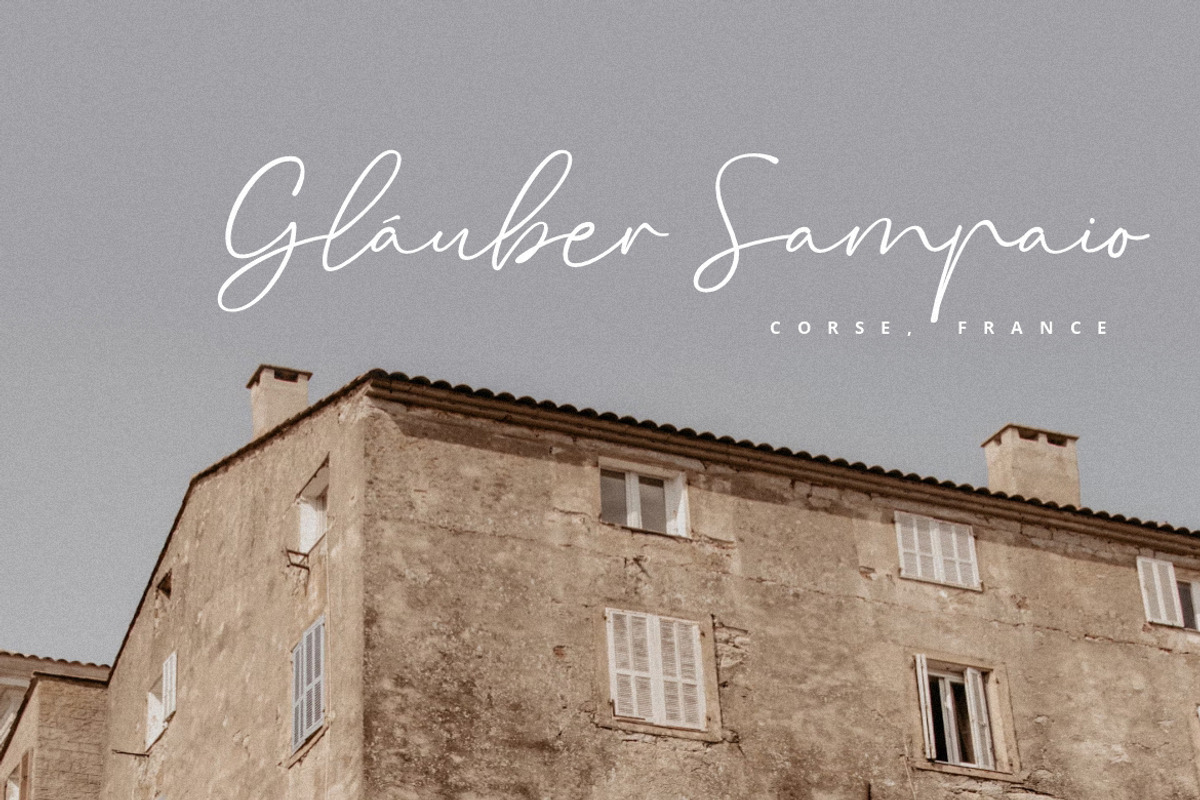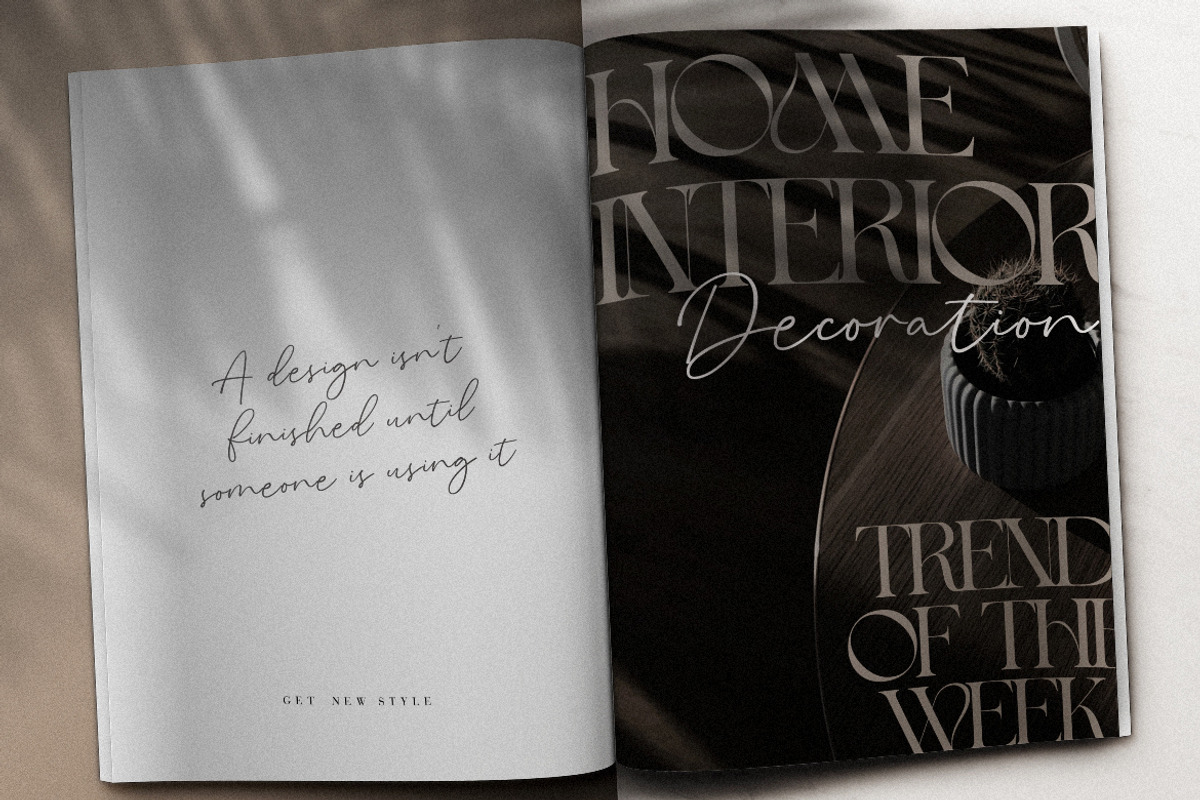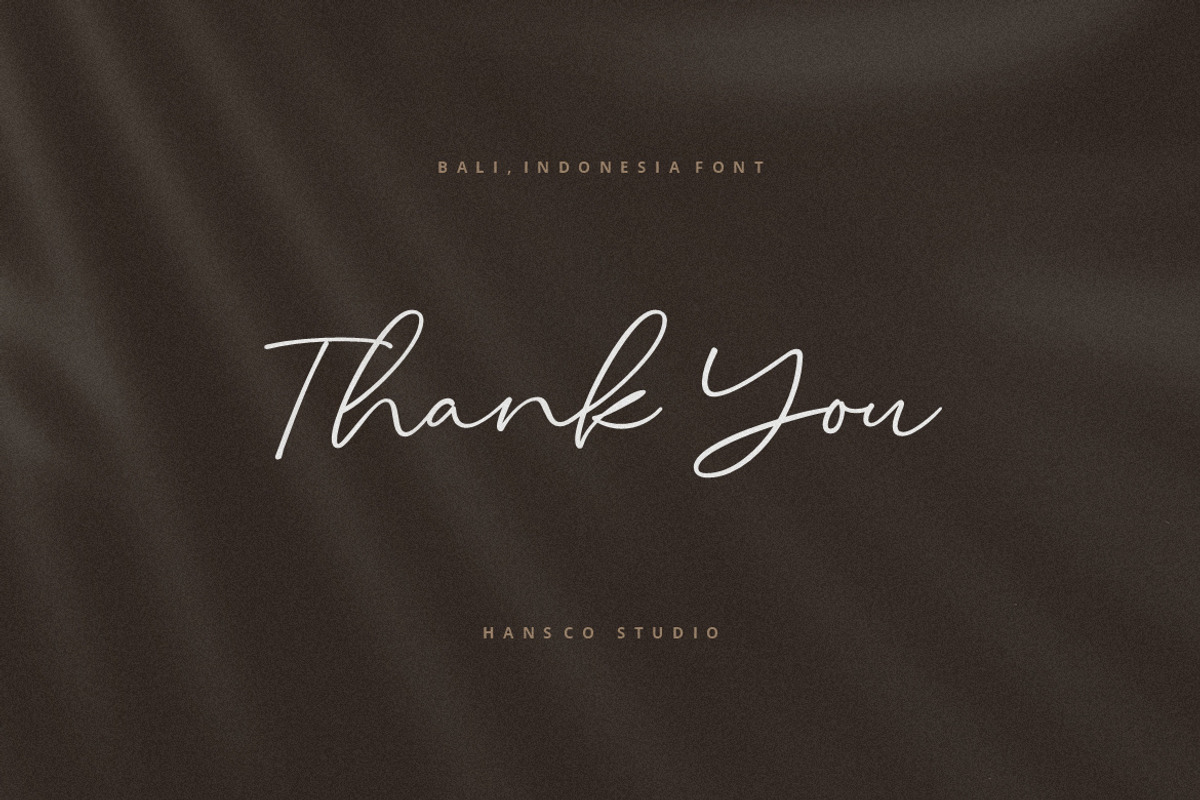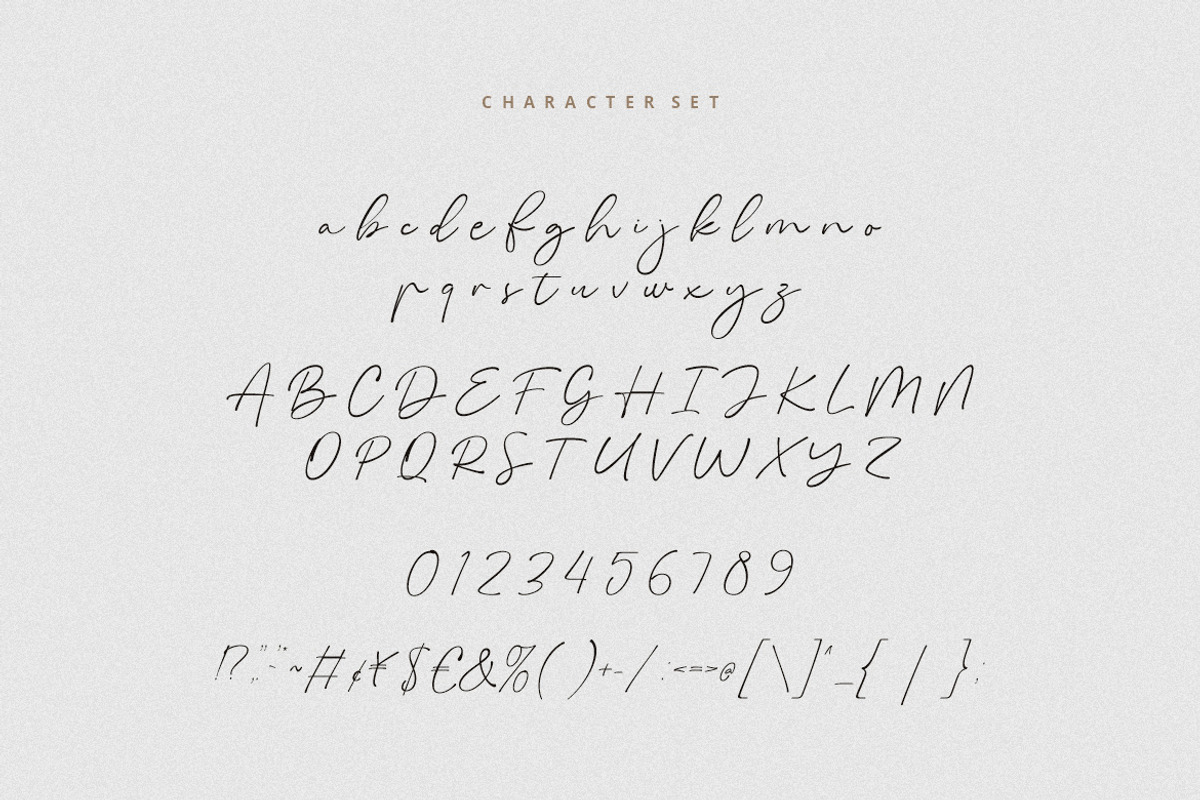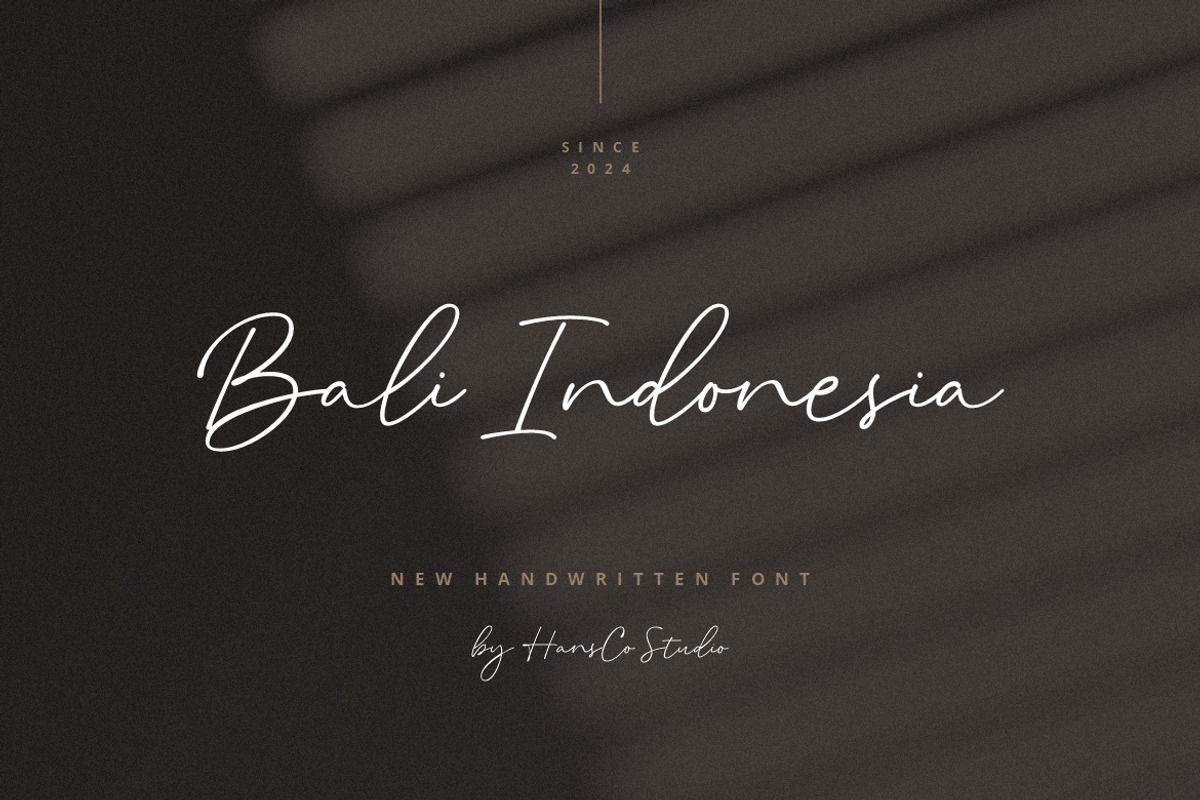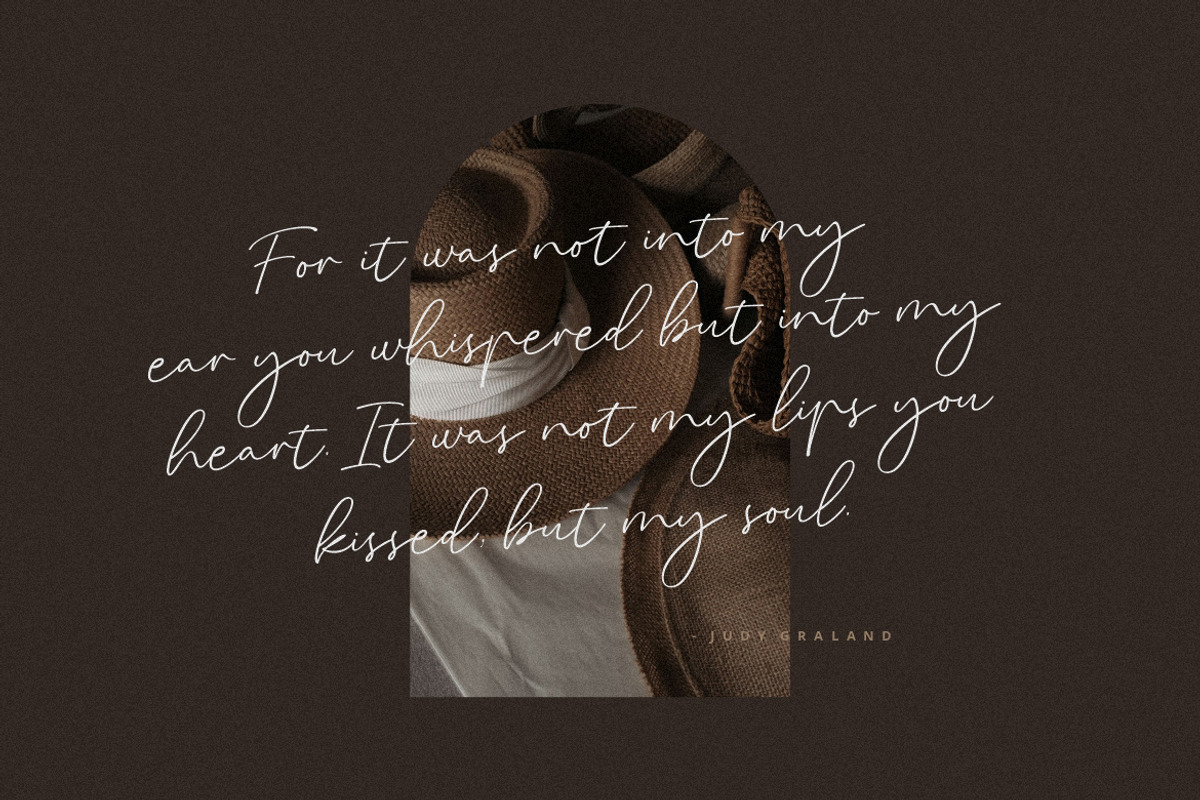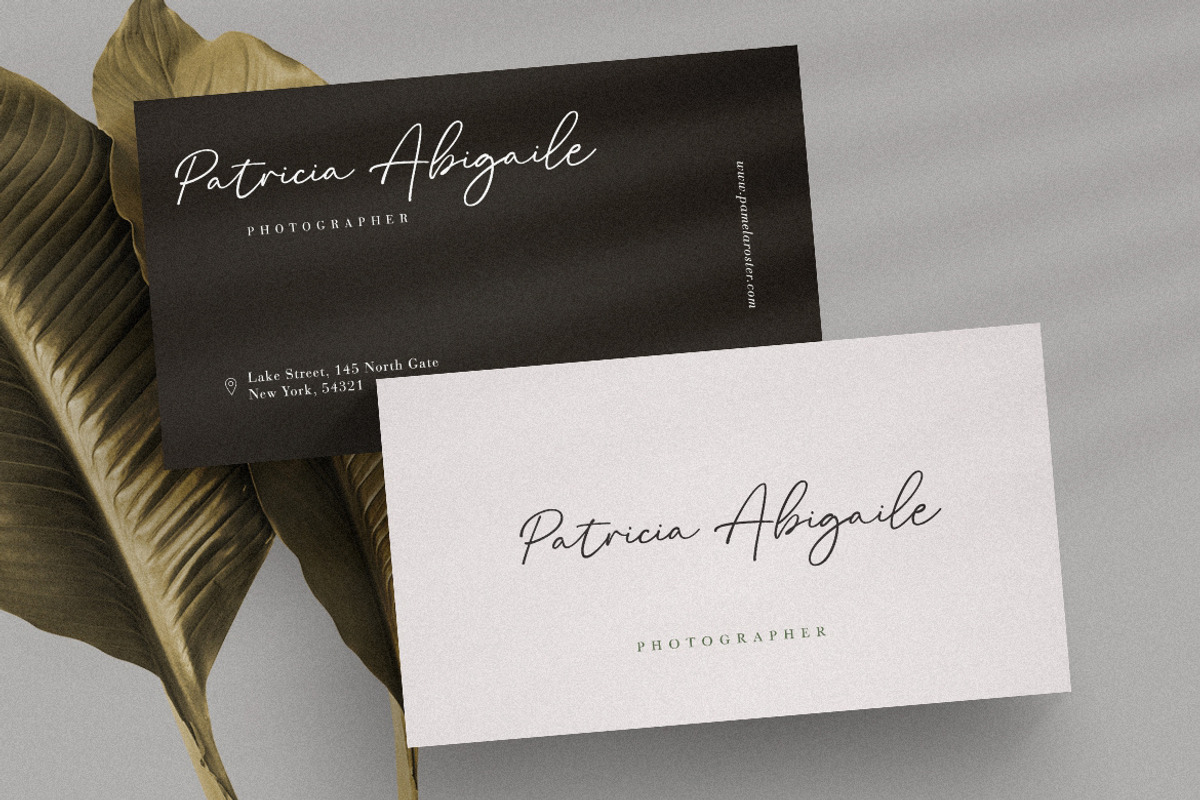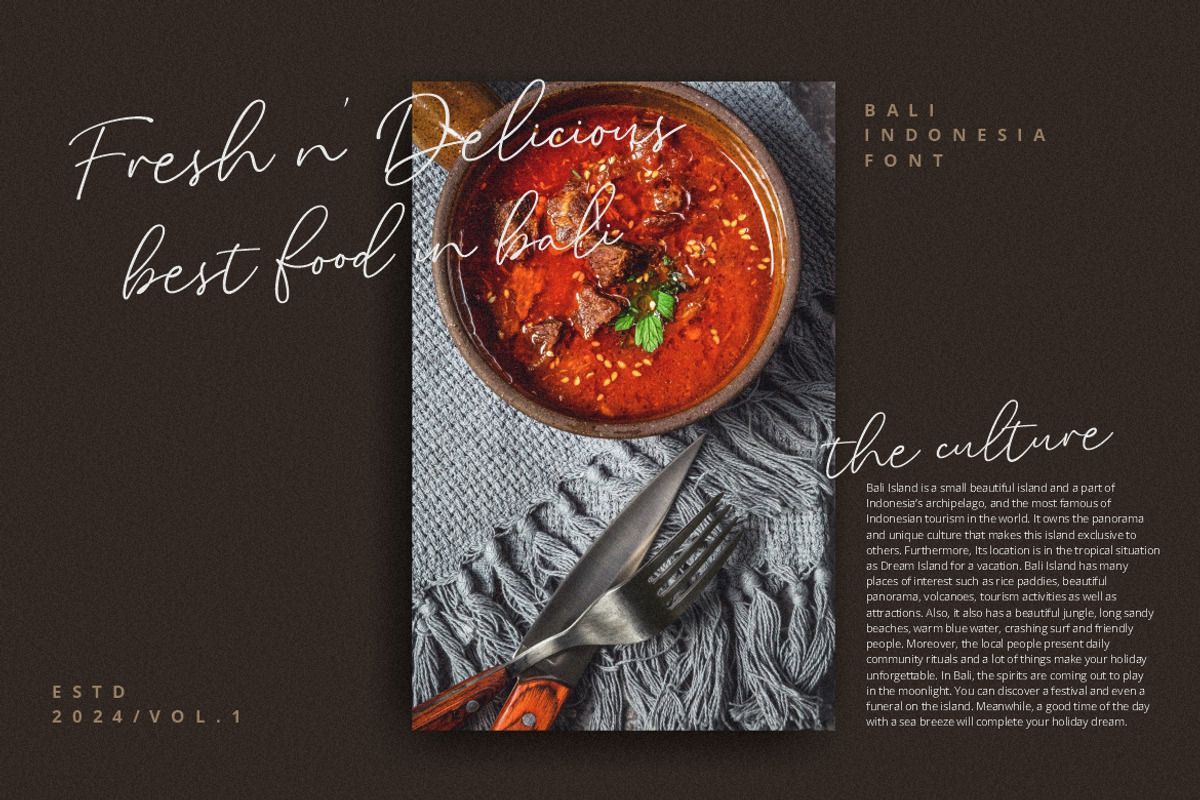
Bali Indonesia Font Handwriting
Bali Indonesia Font is a clean and modern handwriting font carefully created with a touch of elegance. Whether you’re looking for fonts for Instagram or calligraphy scripts for DIY projects, this font will turn any creative idea into a true piece of art!. This font is perfect also for creating print templates like posters, branding, quotes, blog titles, fashion, invitations, greeting cards, business cards, clothing, stationery or anything else.
Ligature